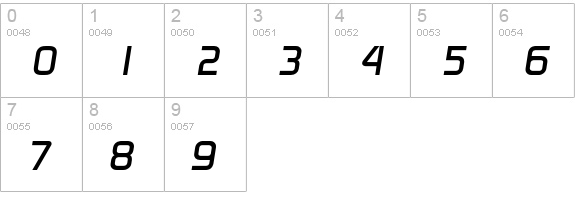
Idigital-Medium Font Details
Idigital-Medium is a balanced, medium-weight variant in the Idigital typeface family \xE2\x80\x94 well suited to sub-headlines, navigation, and balanced editorial work.
Introducing Idigital-Medium, a versatile and modern font that effortlessly combines simplicity with sophistication. Designed with meticulous attention to detail, this typeface exudes a sleek and contemporary aesthetic, making it an ideal choice for a wide range of creative projects. One of the standout features of Idigital-Medium is its unique ability to seamlessly adapt to various design contexts, whether it be graphic design, branding, advertising, or web development. Its clean lines and balanced letterforms create a sense of harmony and legibility, ensuring that your message is conveyed with clarity and impact. Idigital-Medium is not only visually appealing but also highly practical. Its carefully crafted proportions and well-defined letter spacing make it easy to read at any size, from small body text to large headlines. This versatility allows you to experiment and explore different typographic treatments, providing endless possibilities for your creative endeavors. What sets Idigital-Medium apart is its accessibility. This font is freely available to download at FontsMarket.com, allowing designers and enthusiasts alike to access and utilize this exceptional typeface without any restrictions. With its availability, you can enhance your projects with a touch of professionalism and elegance, all while maintaining complete creative control. Whether you're a seasoned designer searching for a reliable and contemporary font or a beginner looking to elevate your designs, Idigital-Medium is the perfect choice. Its timeless appeal, combined with its accessibility, makes it a valuable asset in any designer's toolkit. So, go ahead and harness the power of Idigital-Medium to create stunning visuals that leave a lasting impression.